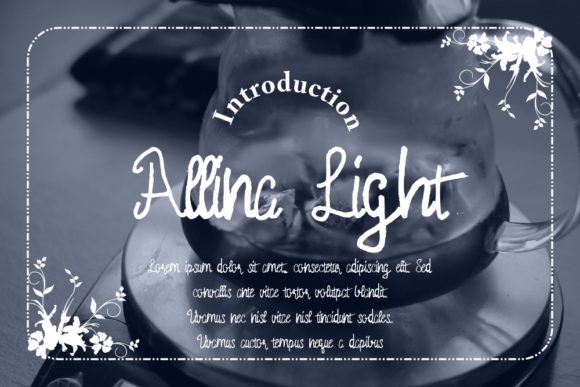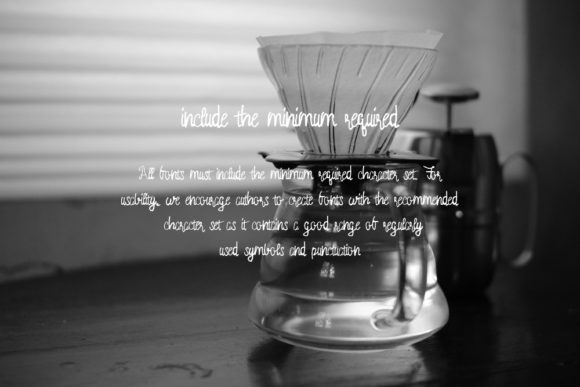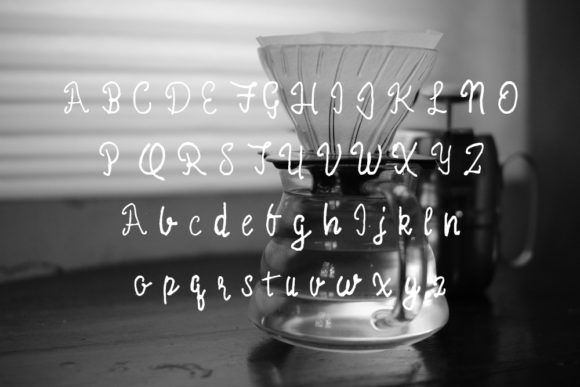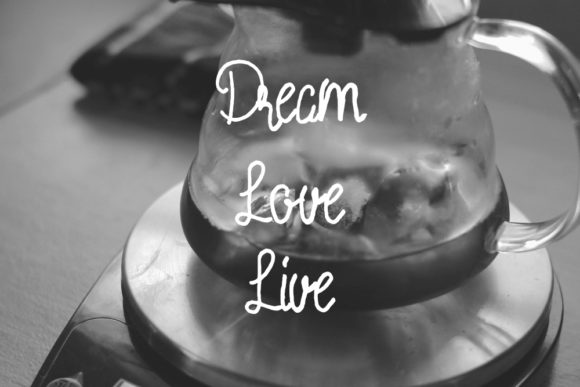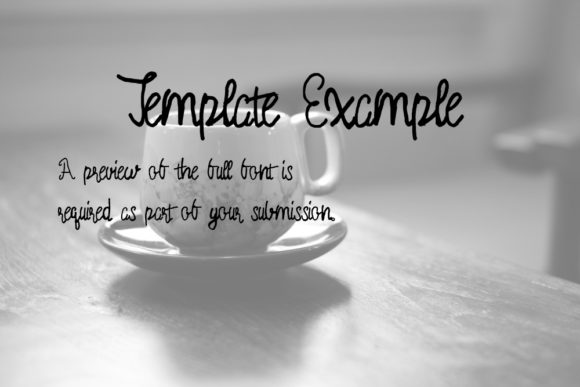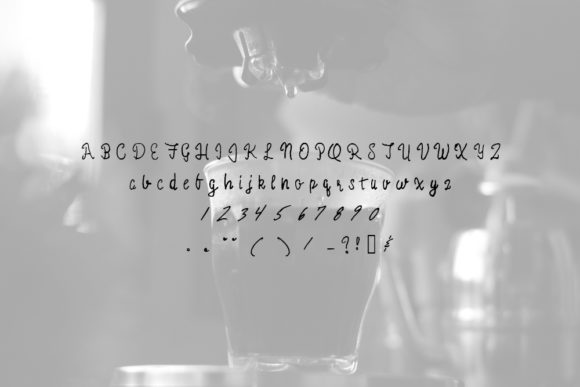
Allina Light Font
Allina Light embodies fun, quirkiness and authenticity. This enchanting handwritten font will turn any creative idea into a true standout.